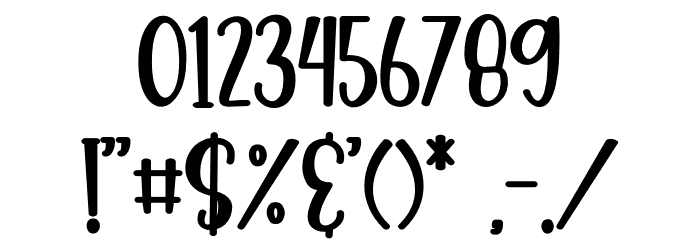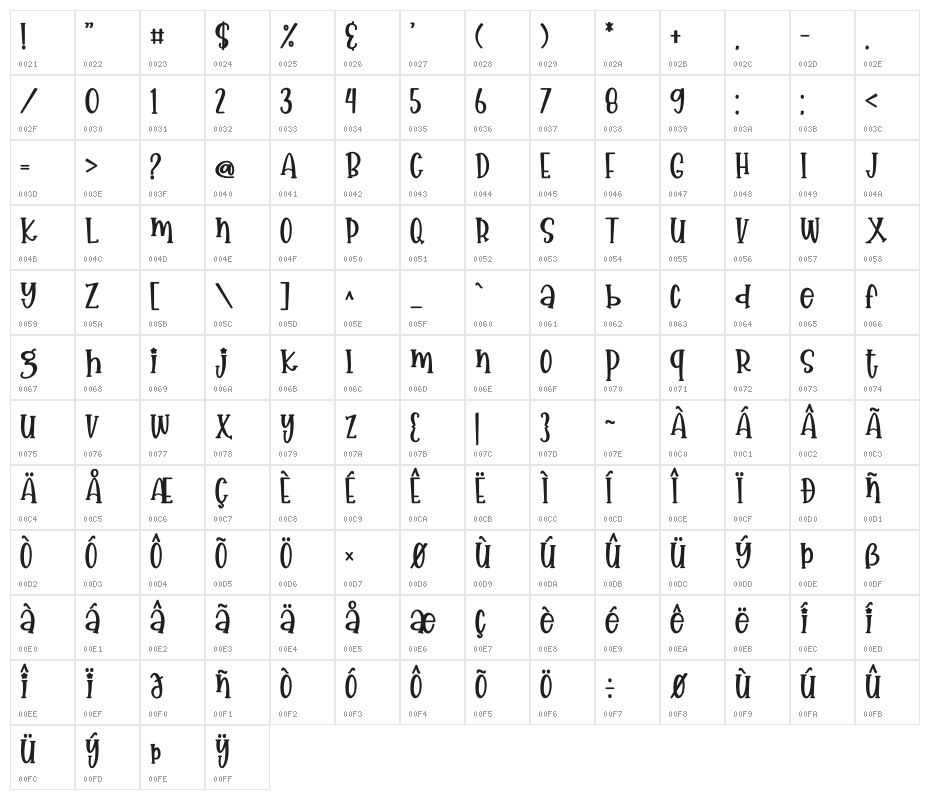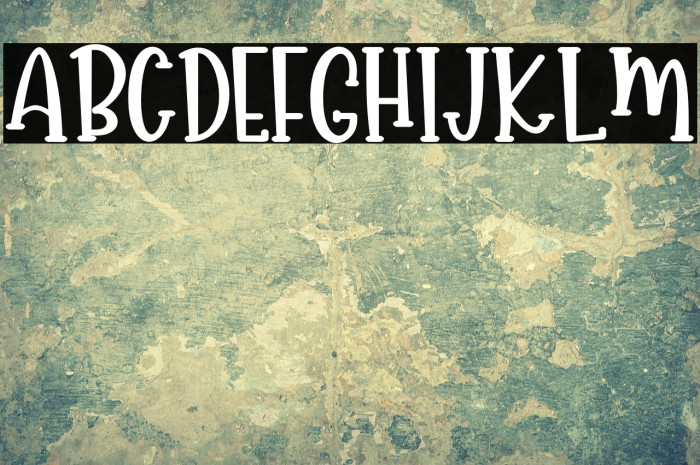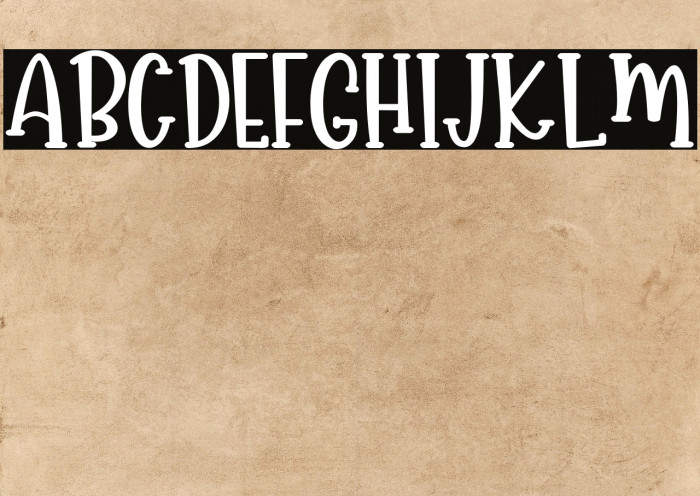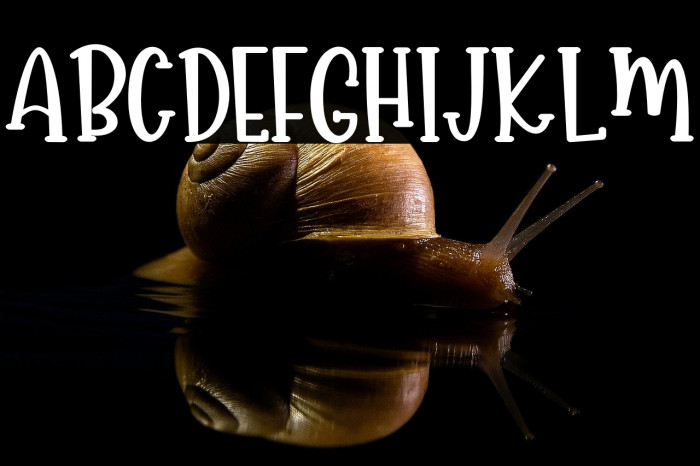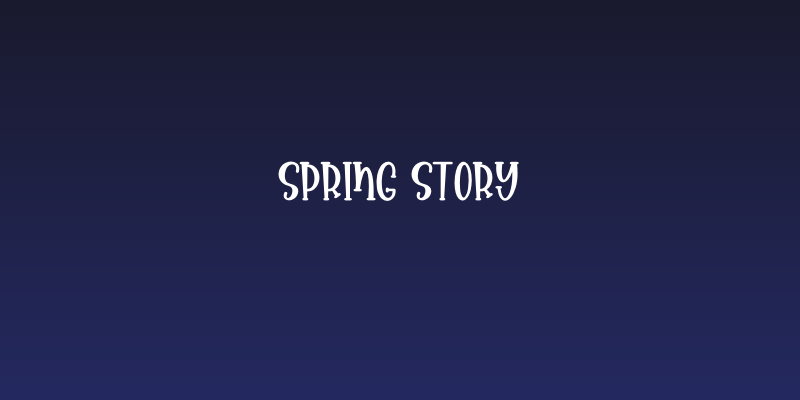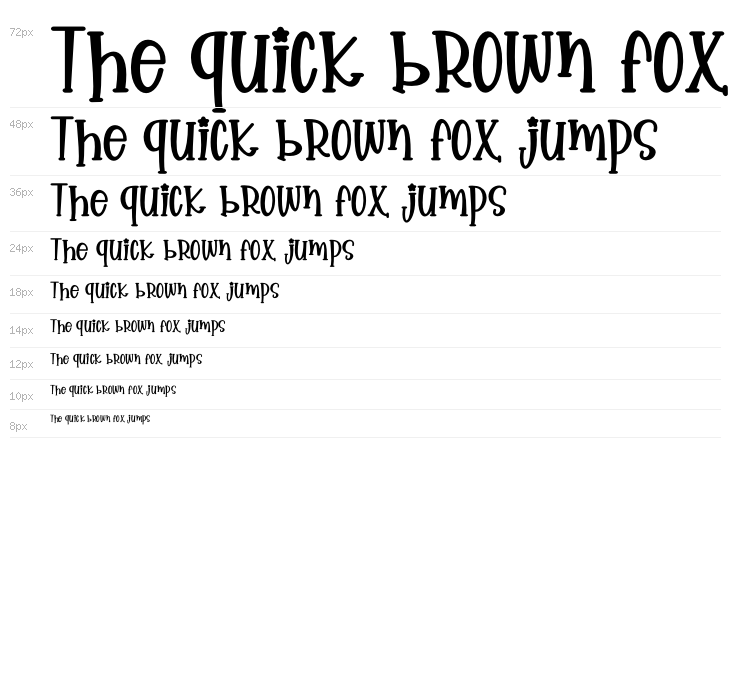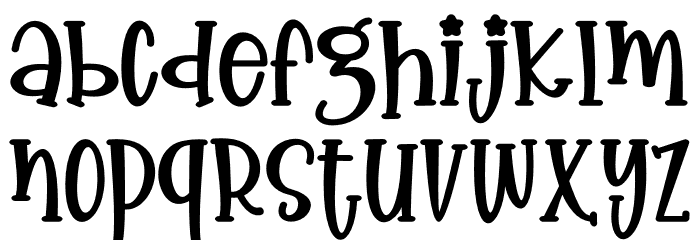
Spring Story Font
Spring Story Description
This playful and whimsical font features a unique blend of curves and angles, creating a lively and dynamic appearance. The uppercase letters are bold and slightly condensed, with distinctive serifs that add a touch of elegance. The lowercase letters maintain a consistent style, with some characters featuring charming flourishes that enhance the font's playful nature. The numbers are bold and easily readable, while the special characters are creatively designed to match the overall aesthetic. This font's style is both decorative and approachable, making it suitable for a variety of creative projects.
| Overall Style | Playful, Whimsical, Decorative |
| Use Case | Headlines, Logos, Creative Projects |
| Proposed Projects | Ideal for children's books, greeting cards, playful branding, and creative posters. |